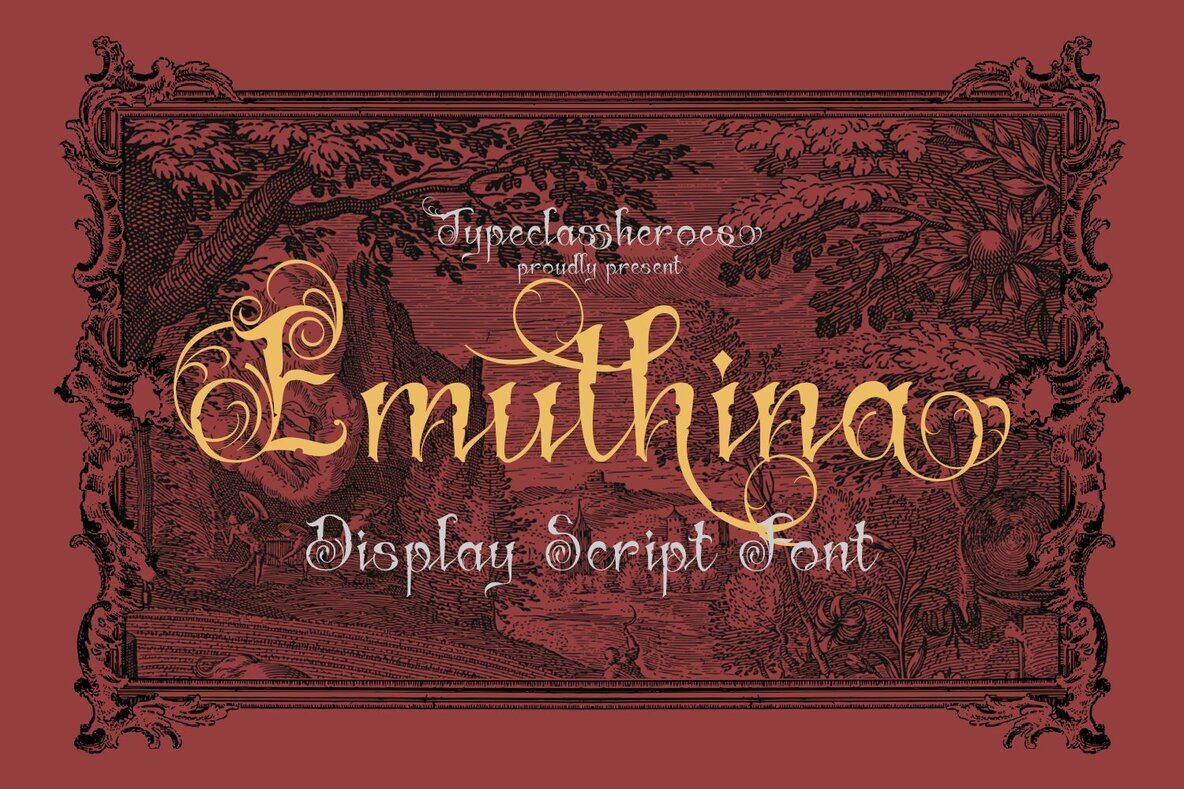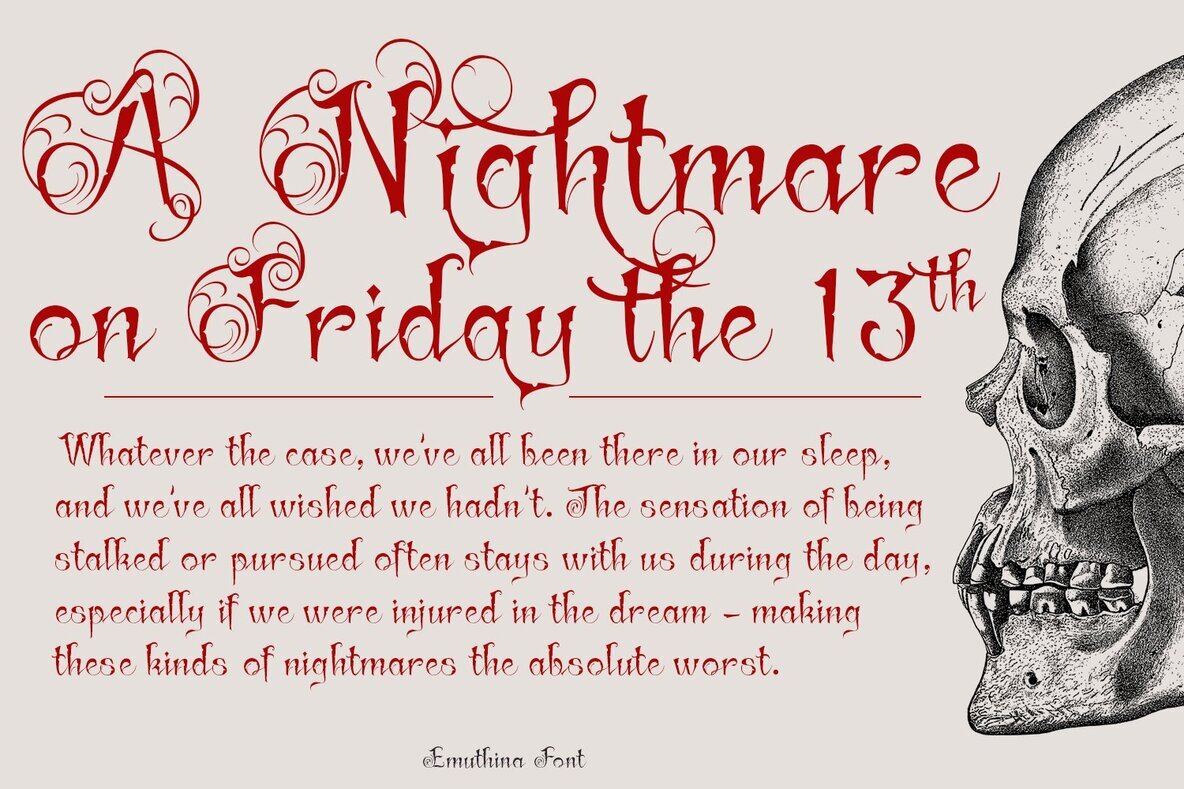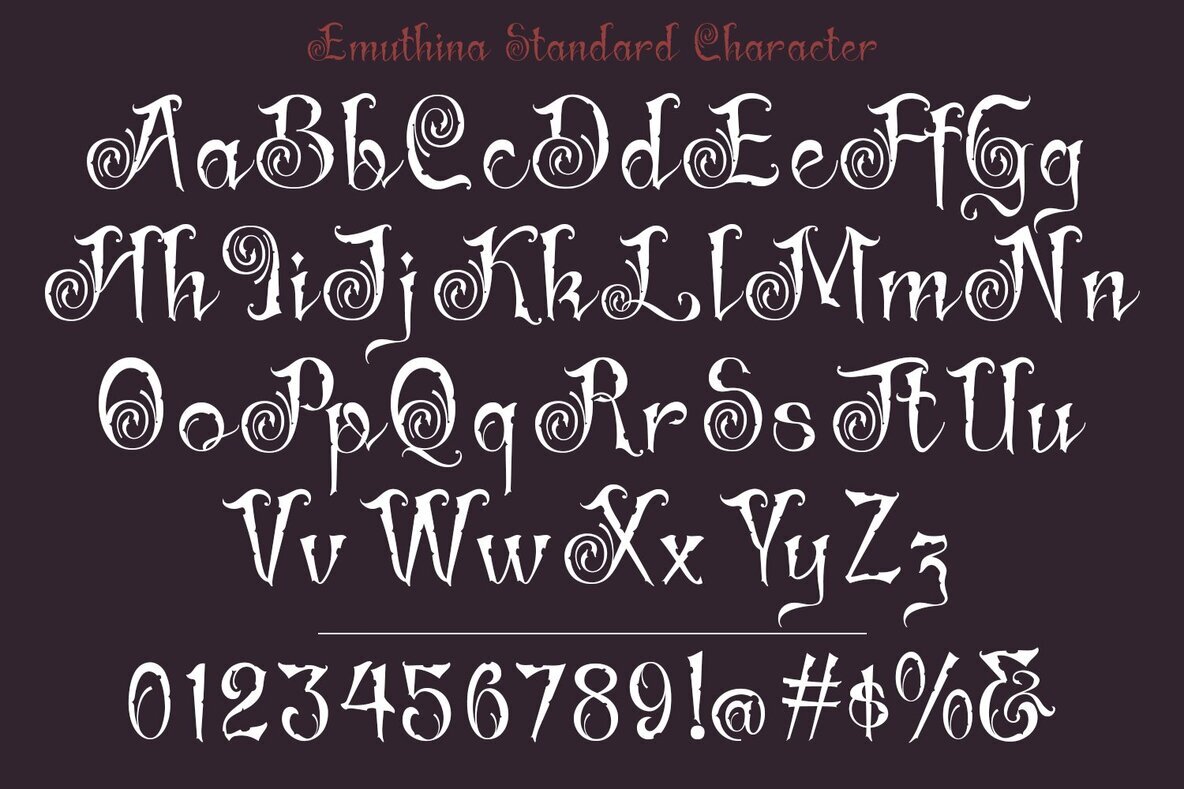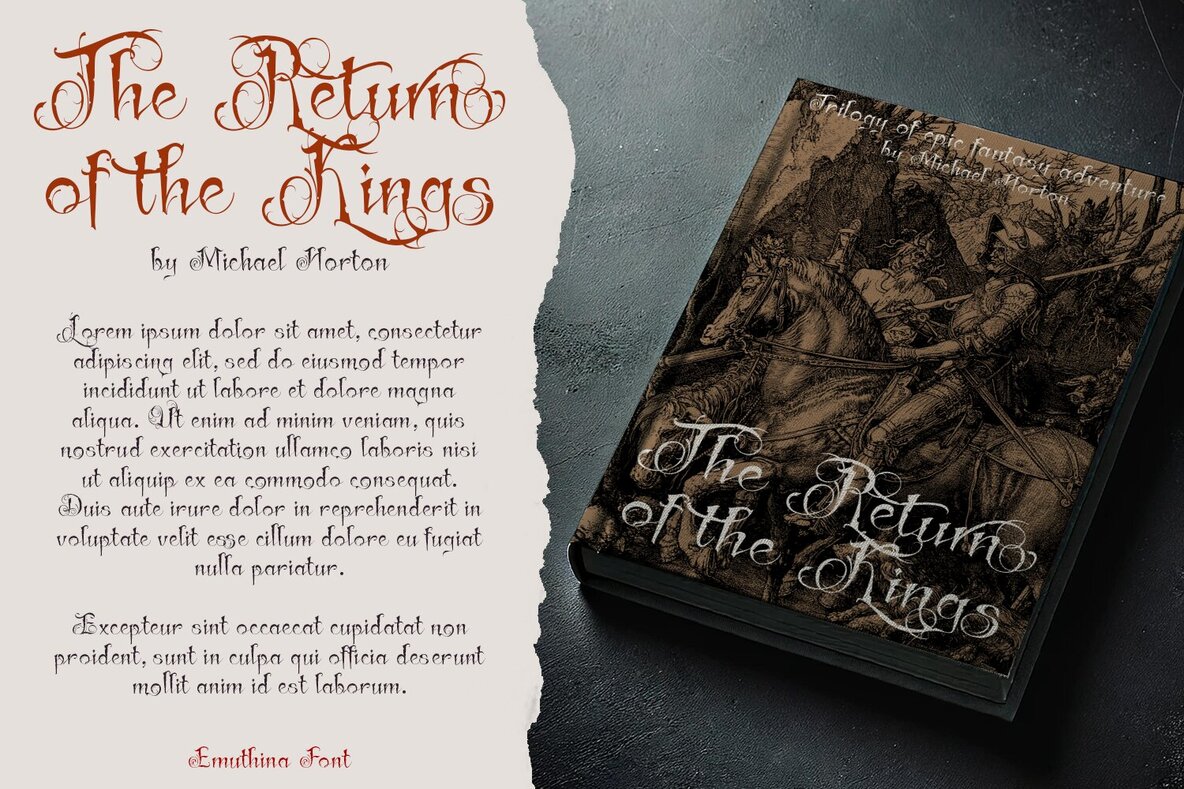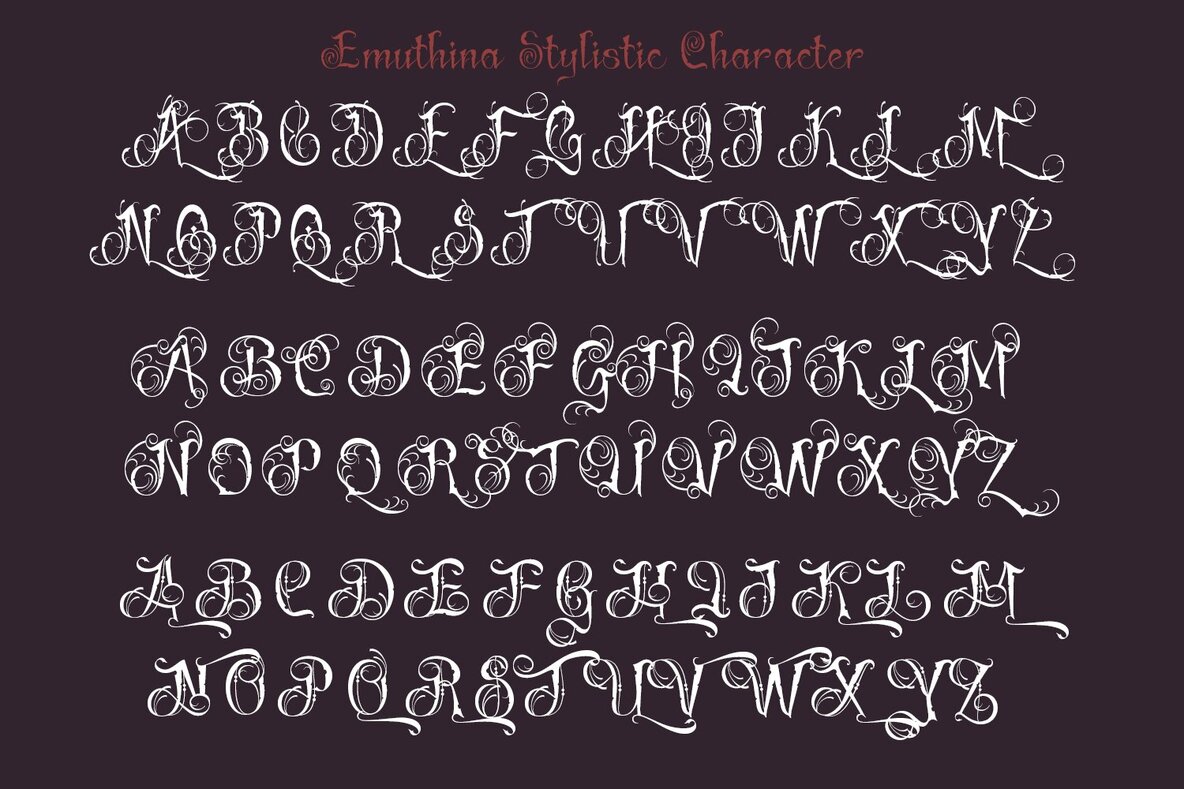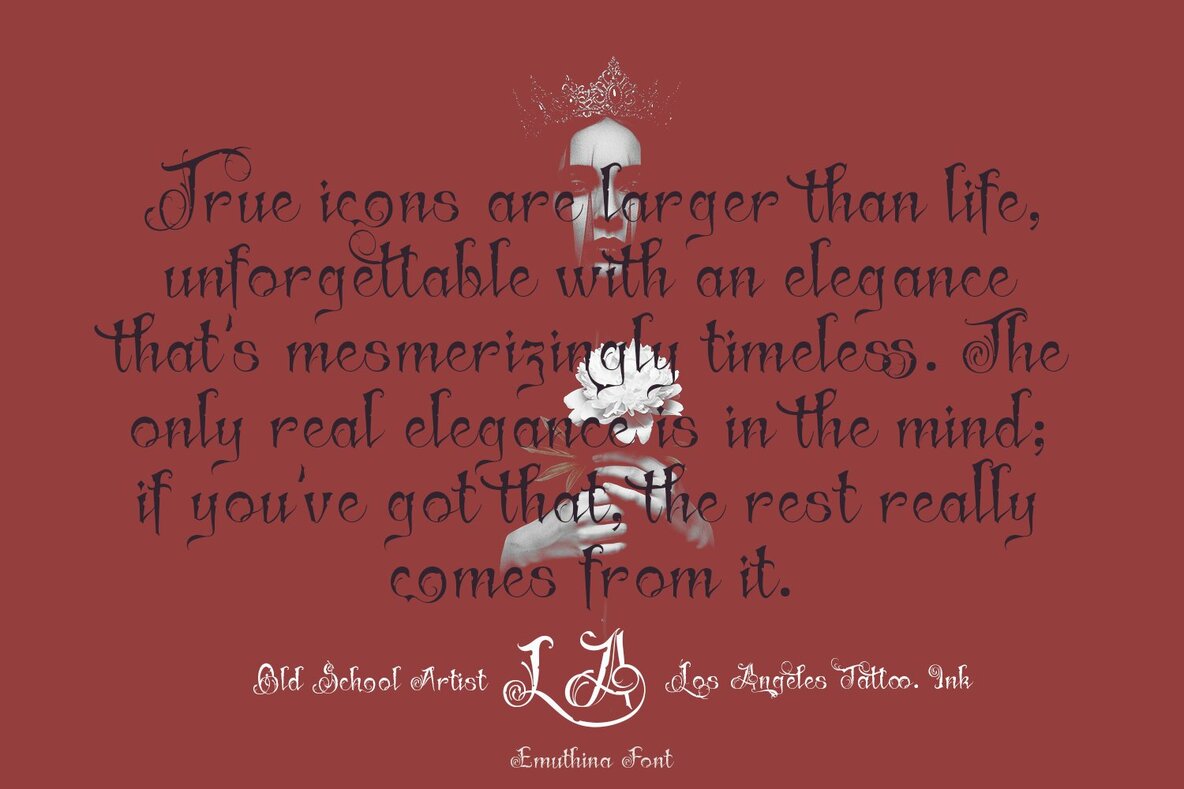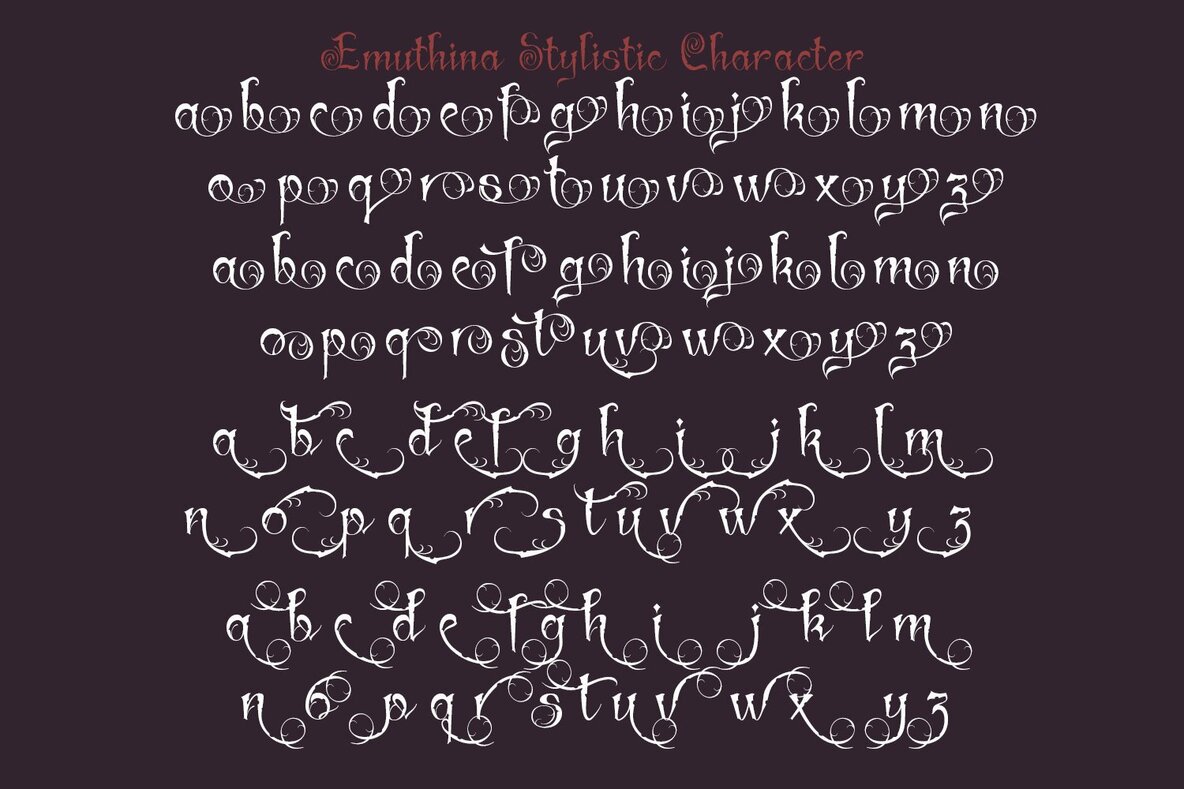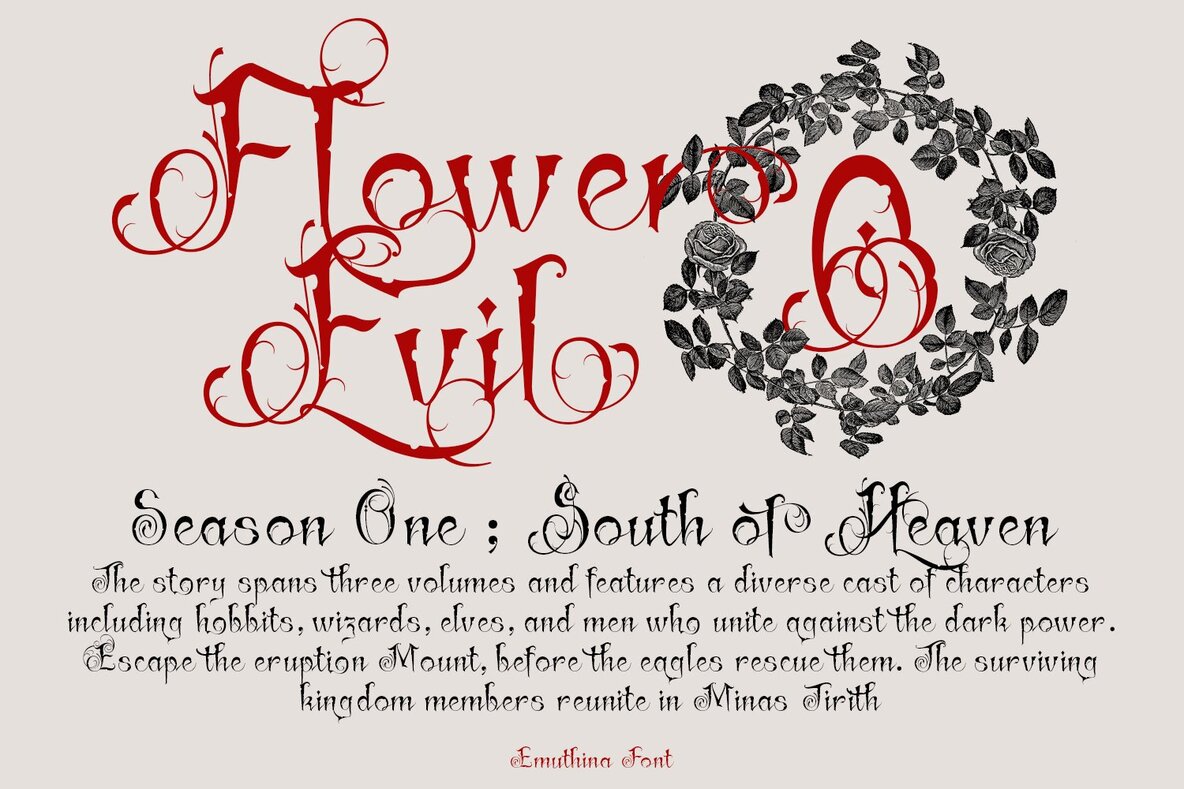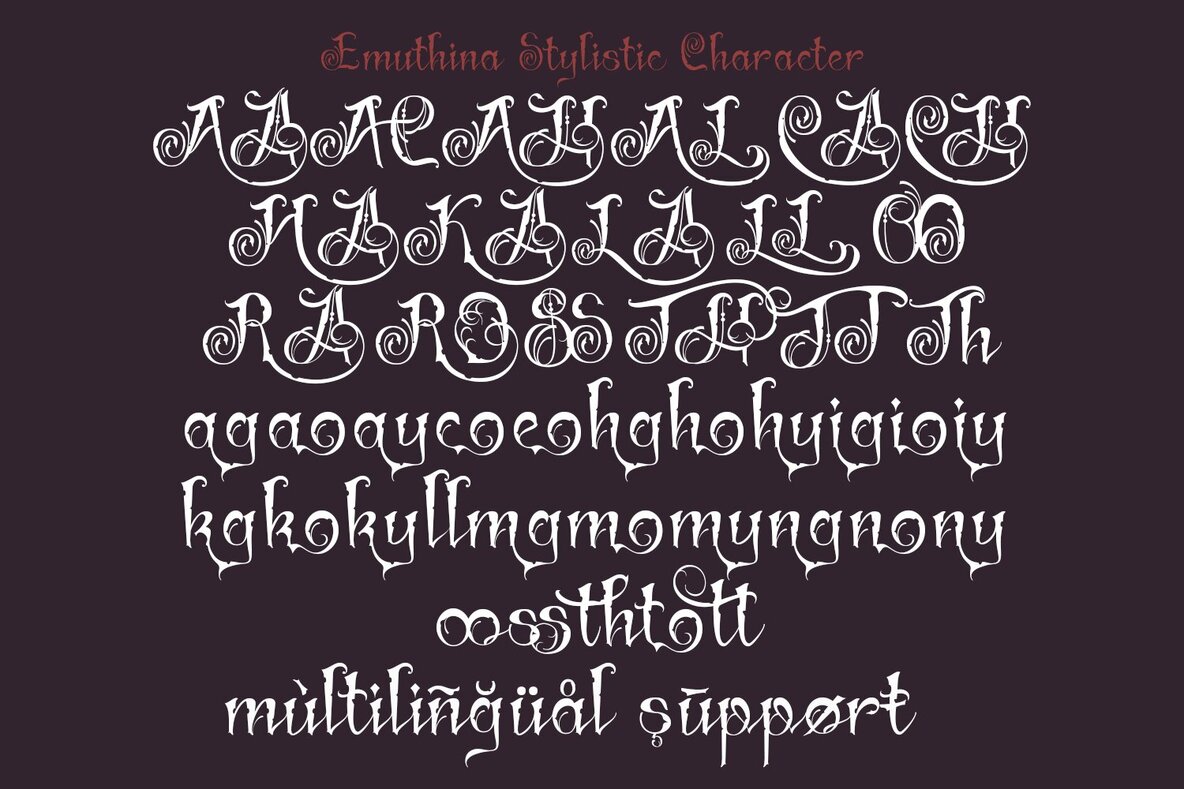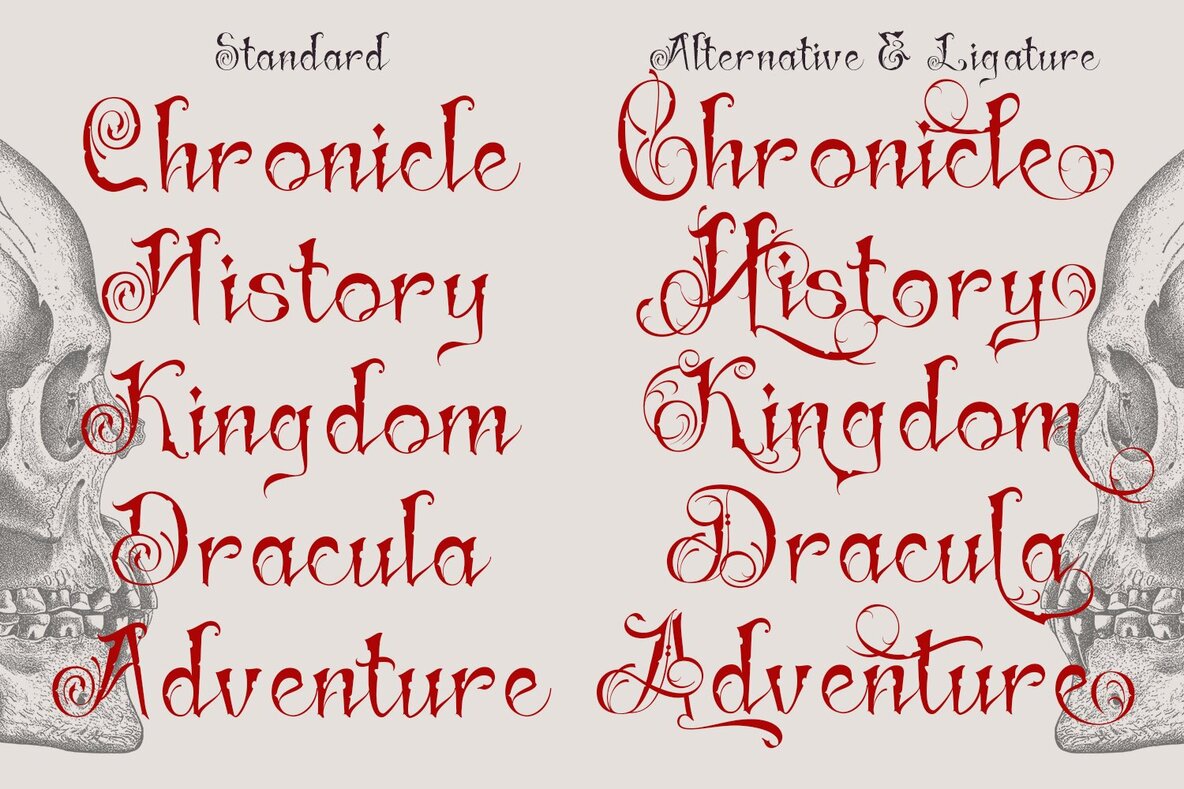
Emuthina Font
Emuthina Regular
Embrace a timeless charm with Emuthina, a decorative script that captures the nostalgia of the 1900s with a refreshingly simple twist. Ideal for projects that demand a vintage allure, Emuthina is versatile enough to enhance both digital and print materials. Its elegant strokes make it perfect for creating striking logos, sophisticated invitations, and stylish labels. Whether you are crafting captivating magazine covers, exquisite greeting cards, or chic packaging, this font brings a unique character to your designs.Emuthina: Vintage Script Redefined